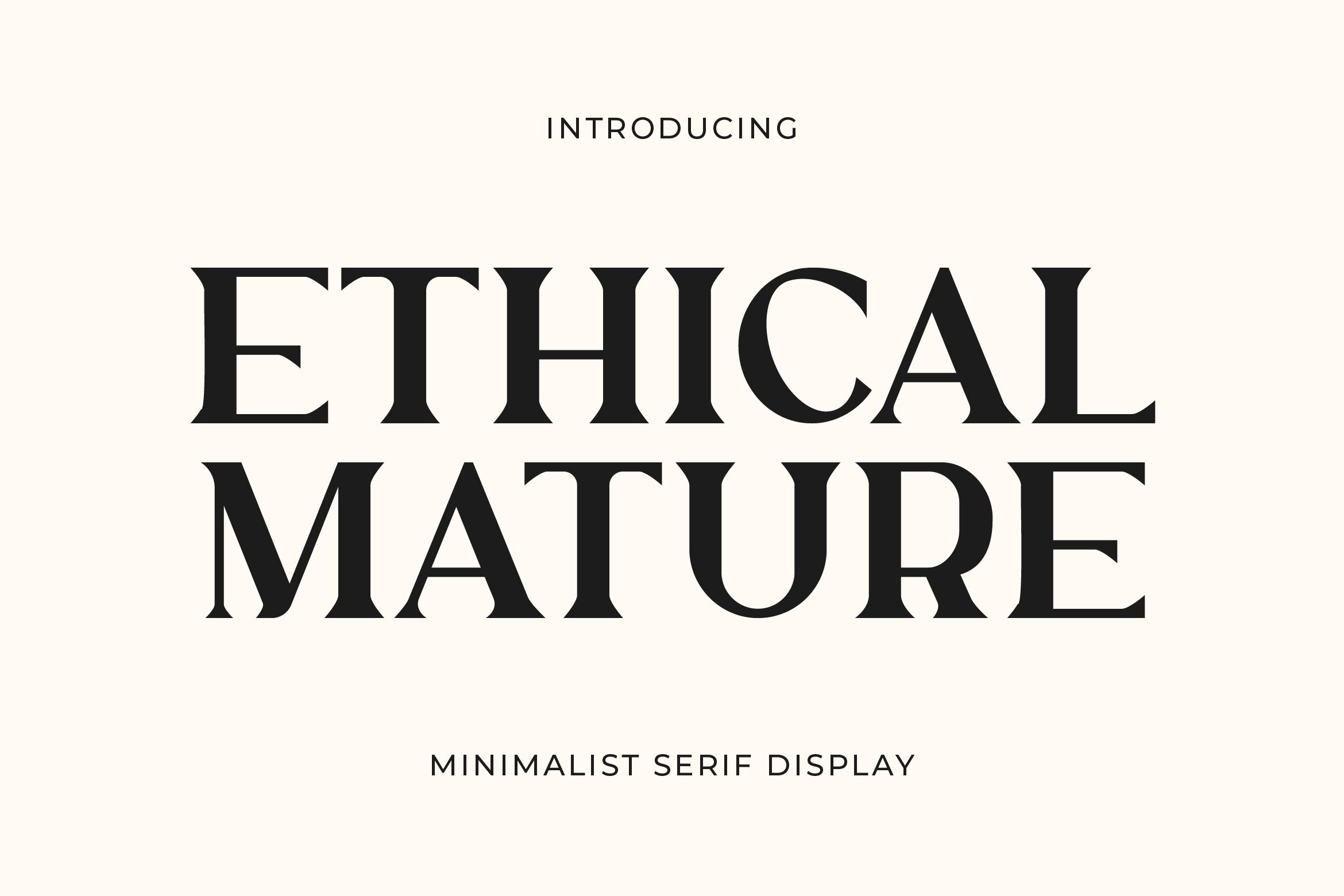
- Ethical Mature Serif Typeface
Ethical Mature is a refined serif font crafted to convey sophistication, professionalism, and timeless beauty. With its high-contrast strokes, sharp serifs, and balanced proportions, Ethical is perfect for mature branding, editorial layouts, book covers, wedding invitations, luxury packaging, and premium logo designs.
Its elegant structure delivers excellent readability while adding a classic yet contemporary feel to any design. Ideal for projects that need a confident and distinguished tone, Ethical blends traditional serif charm with modern refinement for a truly versatile aesthetic.
The font includes uppercase and lowercase letters, numerals, punctuation, multilingual support, ligatures, and stylistic alternates for unique customization.
Bring depth and elegance to your designs with Ethical Mature— the serif font that defines maturity, sophistication, and lasting appeal.